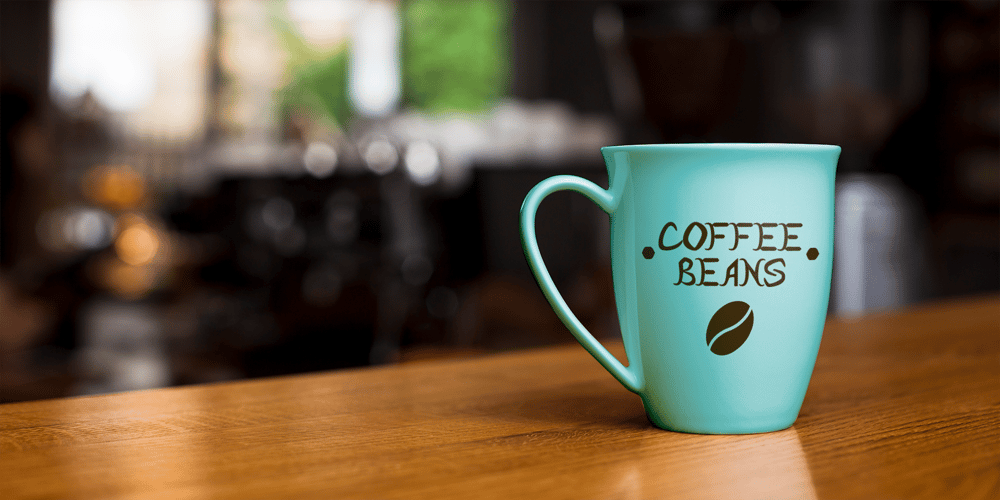
Coffee Beans Font Family was designed by Enes Atağan and published by Enes Atağan. Coffee Beans contains 1 styles and family package options. Coffee Beans font is curly ended type font, great for strong headings and titles. Comes from all caps. You can use like Instgram posts, in logos for example CoffeeShop logos and designs design projects be it logos, art quotes or art headlines vs. If you want to stand out your design and need personality your projects. You must try Coffee Beans Font and see difference with other fonts.